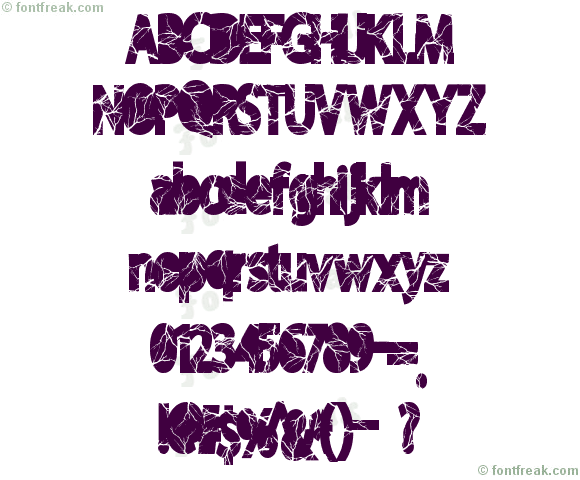
Shockvetica
Shockvetica by Xerographer Fonts is a striking display typeface that seamlessly blends boldness with a unique artistic flair. This font features a sans-serif style characterized by its irregular strokes and a distressed texture, giving it an edgy and contemporary appearance. With a moderate contrast in stroke weight, Shockvetica stands out as a visually captivating option for various design applications. The spacing between characters is carefully balanced, enhancing readability while maintaining a dynamic aesthetic.
Ideal for creative projects, Shockvetica shines in a variety of contexts. It is particularly suited for eye-catching movie posters, where its bold presence can draw attention and intrigue. Additionally, this font is perfect for branding materials, especially for trendy cafes or restaurants, where a modern, urban vibe is desired. Event planners may find Shockvetica to be an excellent choice for promotional flyers, adding an artistic touch that resonates with a creative audience. Furthermore, graphic designers can utilize this font in social media graphics or website headers, ensuring that their content stands out in a crowded digital landscape.
Targeting graphic designers, small business owners, and content creators, Shockvetica provides a versatile and free solution for those looking to elevate their design work. The font's unique character and bold visual style make it an excellent choice for projects that require a touch of personality and flair.
In conclusion, Shockvetica font free download offers an exceptional opportunity for designers seeking a distinctive typeface that breaks the mold. Its combination of bold design elements and versatility makes it a standout choice for a wide range of applications, ensuring that your creative projects will leave a lasting impression.